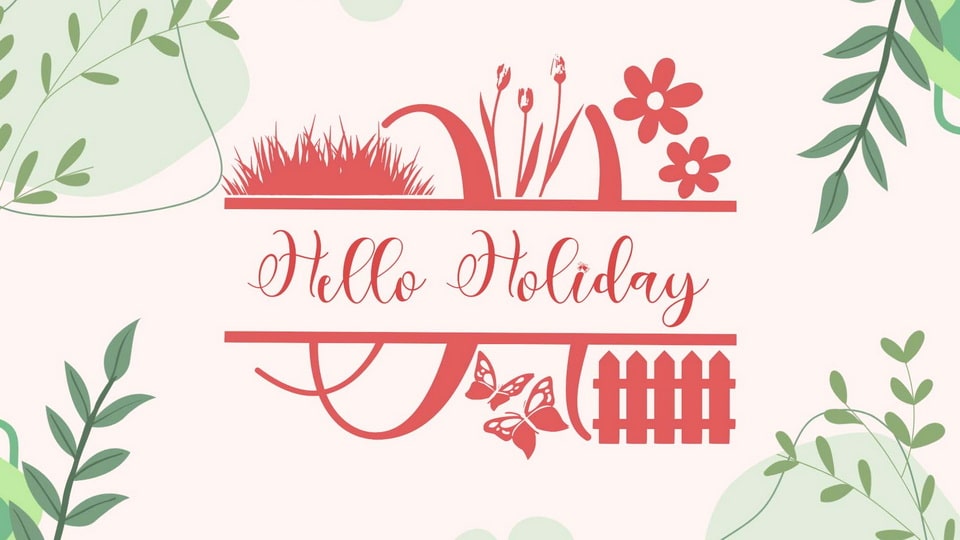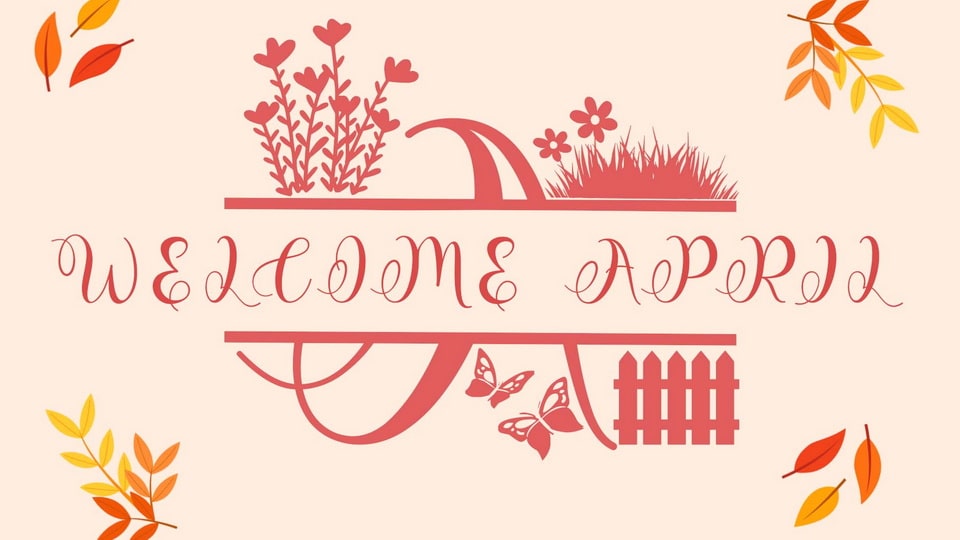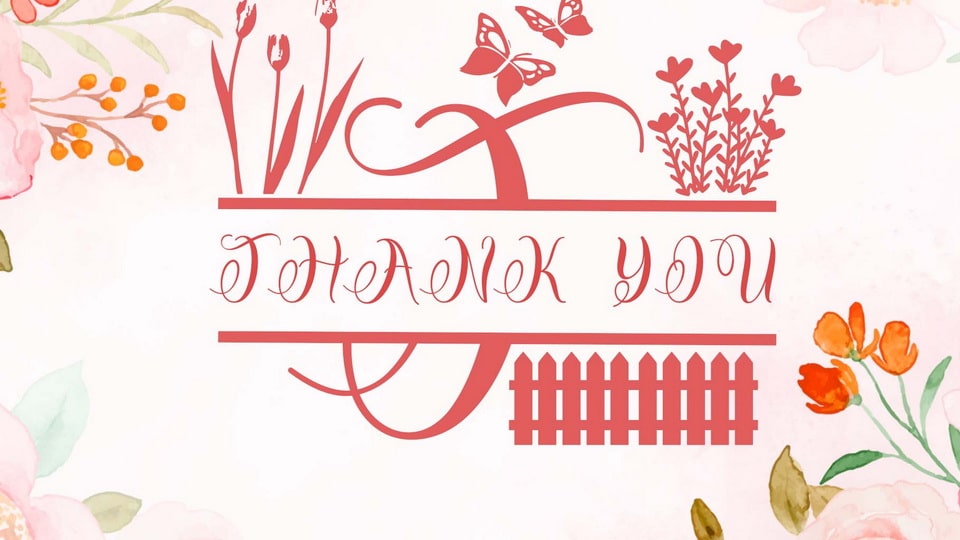
Floral Cute Monogram' is a beautiful and unique monogram font. This font is equipped with monograms, uppercase, lowercase, numerals, punctuations and multilingual support.
It is very suitable for use for spring, summer, easter, wedding, natural, invitations, print, stickers and others.